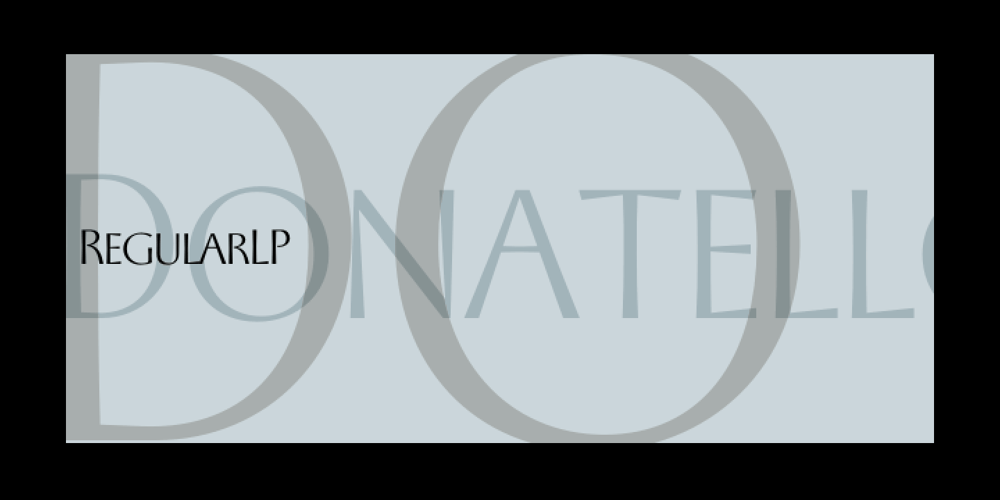
Donatello LP
Donatello LP font
Donatello LP Font Family was designed by Garrett Boge, Paul Shaw and published by LetterPerfect. Donatello LP contains 2 styles and family package options. Donatello is a classically proportioned design with subtly tapered strokes, inspired by the lettering on the fifteenth century cantoria by Luca della Robbia in the Museum of the Duomo, in Florence. The design, consisting of caps and small caps, also includes Donatello Alternates — a compatible set of wider characters. It was designed by Paul Shaw and Garrett Boge in 1997. Donatello is part of the LetterPerfect Florentine Set.